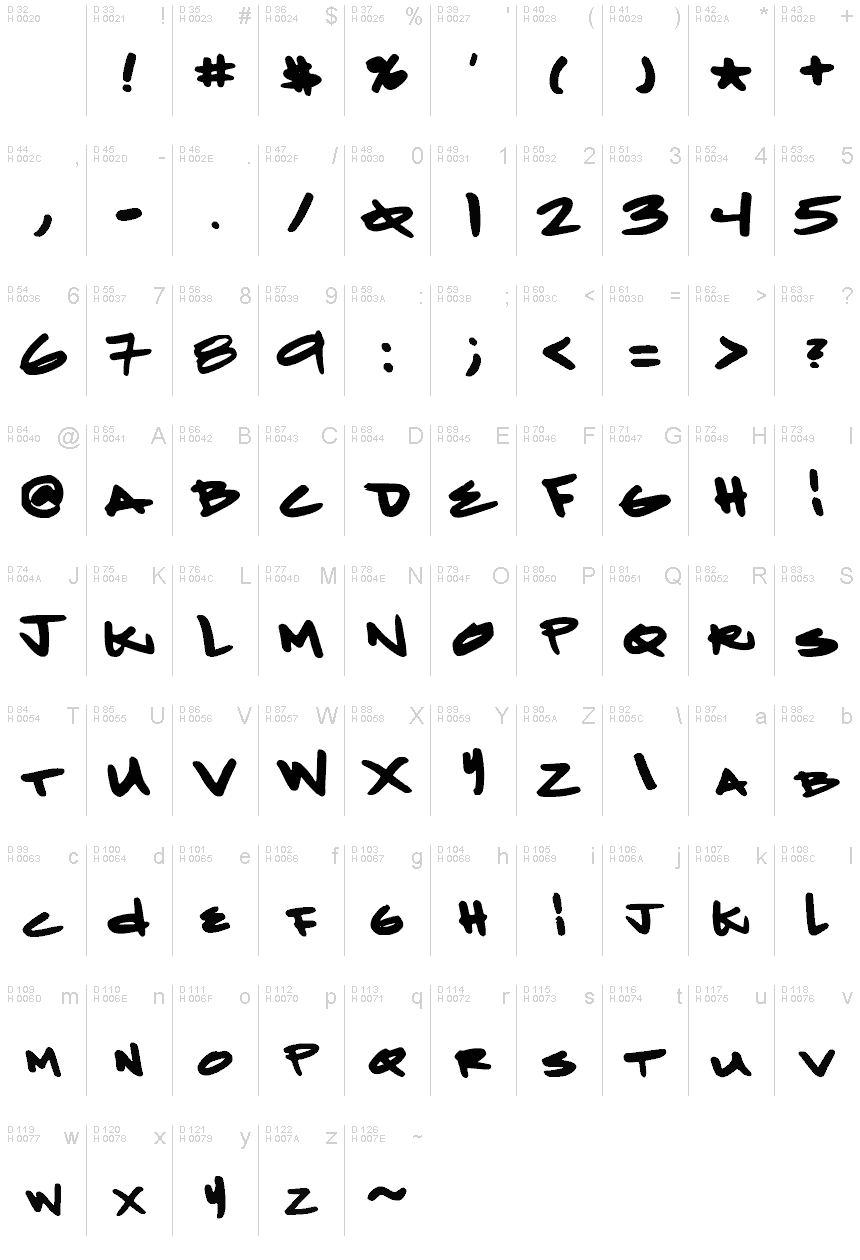
MintGreenlaces
Mint Greenlaces is a captivating handwritten font that exudes an air of effortless sophistication. Designed by Greenlaces, this bold, expanded typeface showcases a harmonious blend of organic fluidity and striking visual appeal. The unique character shapes and irregular stroke variations create a dynamic, hand-crafted aesthetic, conveying a sense of authentic expression and personal touch.
This font's versatility shines through its ability to infuse designs with a touch of artisanal charm. Its expansive width and robust weight lend themselves well to attention-grabbing headlines, impactful branding, and expressive typographic compositions. Mint Greenlaces effortlessly bridges the gap between modern elegance and a touch of playful personality, making it a versatile choice for a wide range of creative projects.